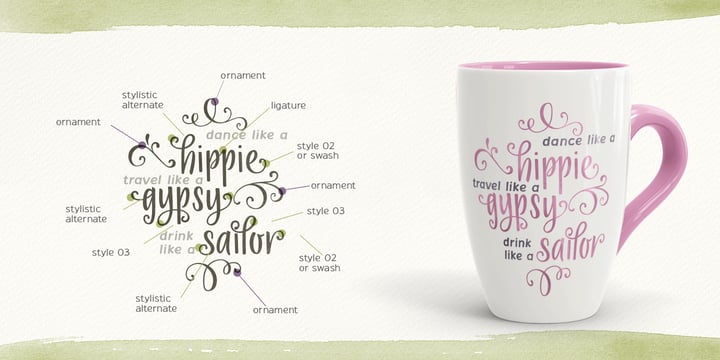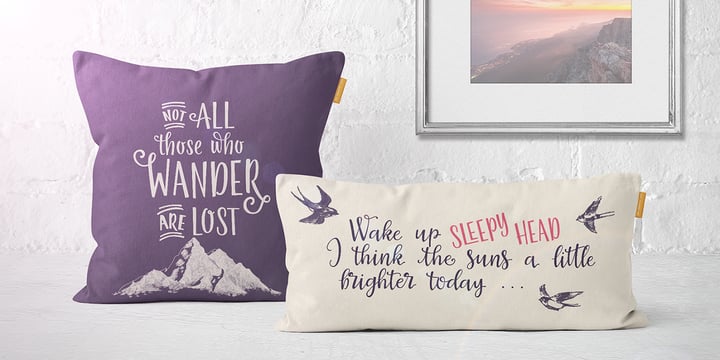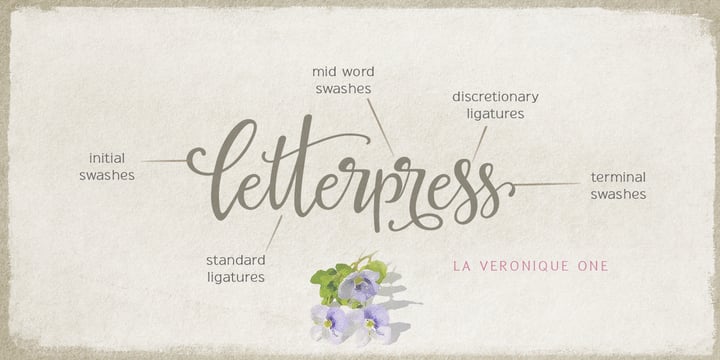
La Veronique
La Veronique by My Creative Land
La Veronique Font Family was designed by Elena Genova, and published by My Creative Land. La Veronique contains 7 styles and family package options. More about this family
About La Veronique Font Family
A hand written font family, created with the upcoming spring and sunshine in mind. It is full of alternates, swashes, ligatures and other open type features. You can use it for wedding invitations, thank you cards, quotes - the choice is only limited by your imagination!